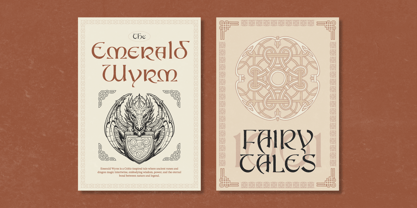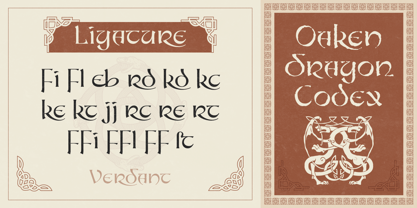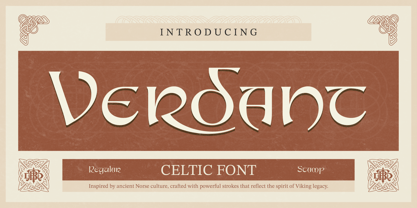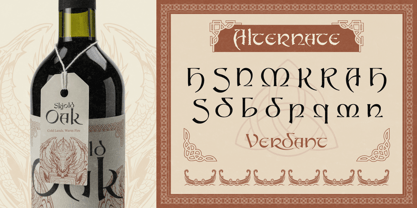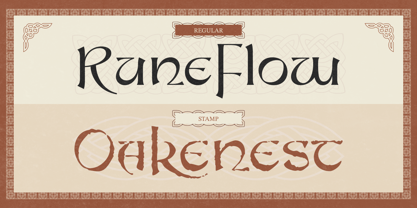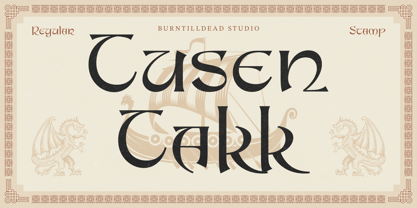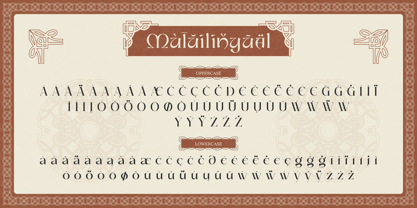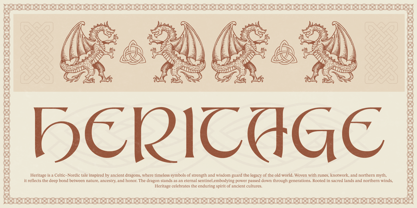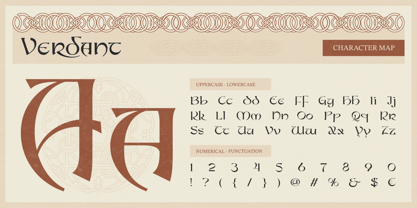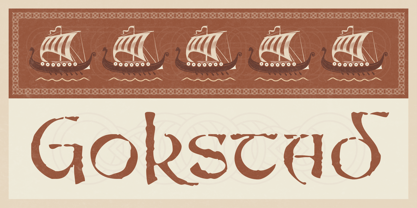
Verdant
Verdant is a Celtic-inspired display font with a bold, mythical character rooted in ancient Norse and medieval aesthetics. Built with strong strokes and organic curves, this font brings a powerful, legendary feel to every design. Verdant comes Regular and Stamp style, allowing you to create both clean and textured looks with ease. This font is ideal for fantasy and medieval branding, book covers and editorial titles, game titles and RPG designs, album covers and merchandise, posters, packaging, label design, and logos with a mythical, folklore, or historical theme. Verdant is perfect for designers who want to create visuals that feel timeless, mystical, and inspired by ancient legends. Features: A - Z set (Uppercase & Lowercase), number, punctuation, alternates, ligatures, multilingual